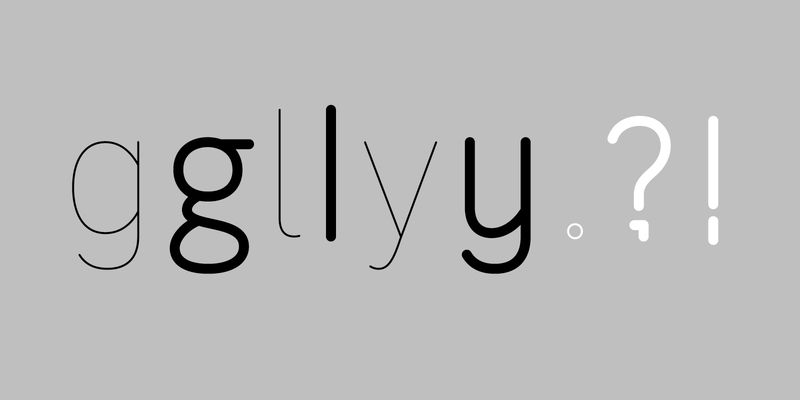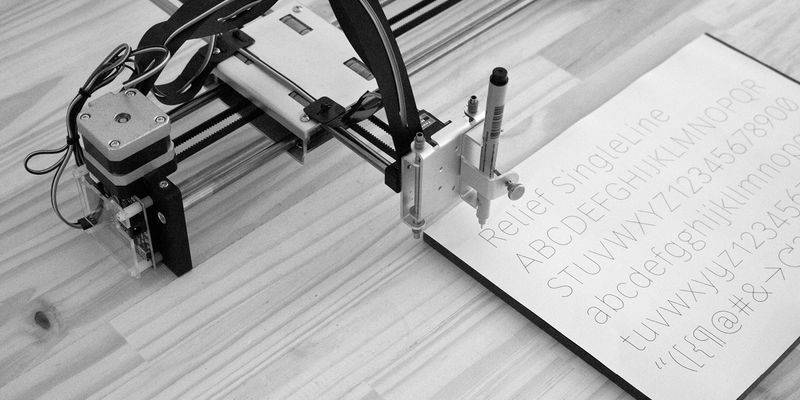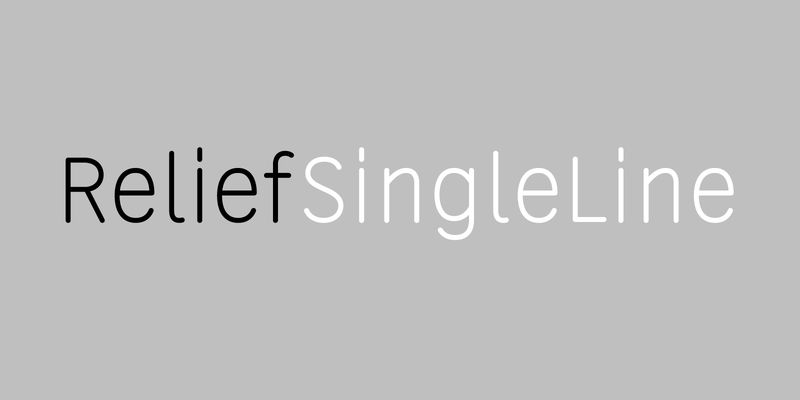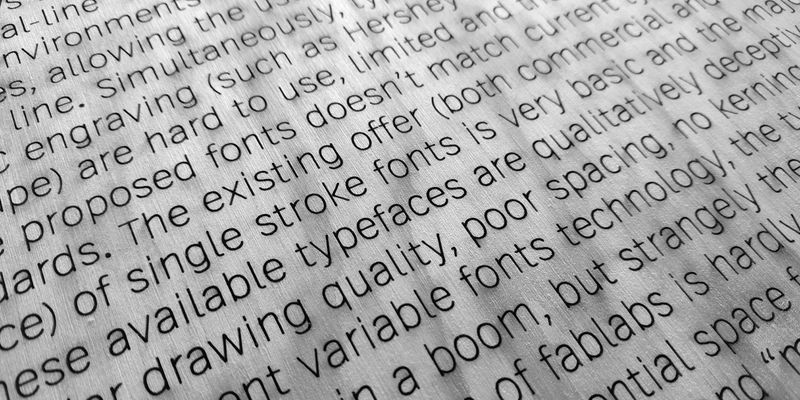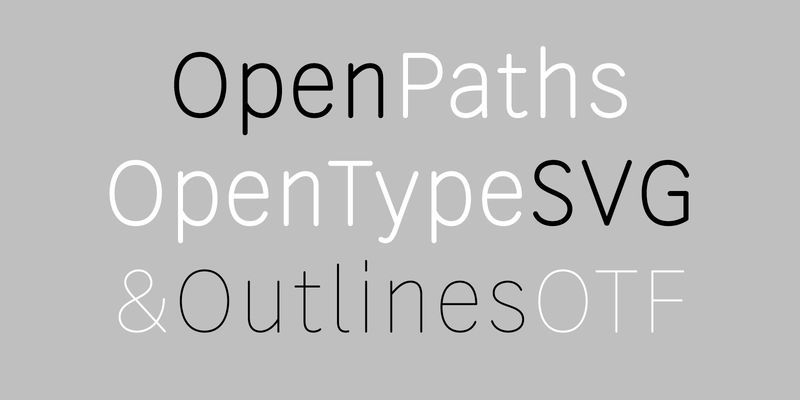
Relief SingleLine is a versatile sans serif “single-line” font with open paths oriented towards CNC (Computer Numerical Control) and fab labs environments. Relief SingleLine provides a single-line path for a pen, laser, or milling tool to follow for an efficient and clean looking typographical rendering with kerning and opentype features. Relief SingleLine with its skeletal logic and parametric thickness can also be useful in print and web experiments. The structure of this alphabet is influenced by Adrian Frutiger’s little known and underrated Vectora typeface. Relief SingleLine has several stylistic sets, proposing lowercases alternates g, l, y and a punctuation variant for small size inscriptions (period and related signs).
Relief SingleLine Regular is an OpenType-SVG single-line font running on Adobe apps (CC 2019 and above). In Illustrator or Indesign, compose your typographic layout then choose the function / Text / Vectorize to achieve titles or paragraphs as single-line shapes to send to your favorite CNC machine or print. With such an open paths font you can also apply for example an equal stroke thickness to your typographic composition no matter the type size. By default, if an application can’t use the open paths SVG layer it should switch to the outlined OTF layer also embedded in this OpenType-SVG font.
Its companion Relief SingleLine Outline Regular is a “classic” OTF with contours (with its 40 units stroke thickness it is close to a Thin weight) that can run on most applications.